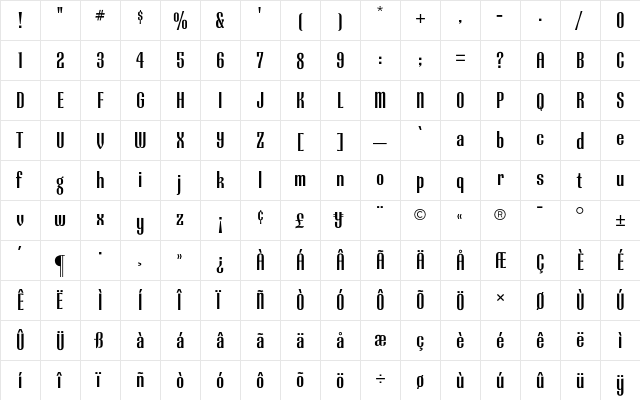
Radiant CG Bold ExtraCond Regular Font Preview
| Foundry | Agfa Corporation |
Design Context for Radiant CG Bold ExtraCond Typeface
Radiant CG Bold ExtraCond takes a measured approach to typography — its balanced proportions and neutral character make it a reliable workhorse for both digital and print work. Its bold stroke weight gives it real presence on the page. Its narrow stance lets it pack a punch even in space-constrained designs.